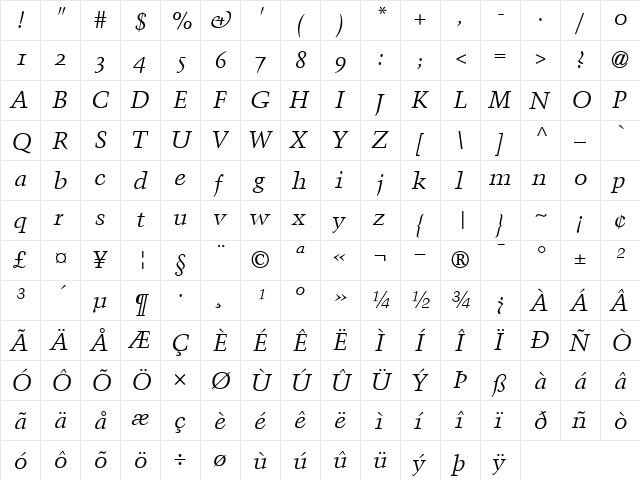
TrumpMediaevalOldStyleFigures RomanItalic
Design Context for TrumpMediaevalOldStyleFigures Typeface
TrumpMediaevalOldStyleFigures brings classic typographic sensibility to the table — its serifs and measured letterforms reflect centuries of print heritage. Its italic angle brings a sense of urgency and motion to the letterforms.
Pro Tip: Set TrumpMediaevalOldStyleFigures with slightly loose tracking in headlines to let each letterform's detail read clearly at display sizes.